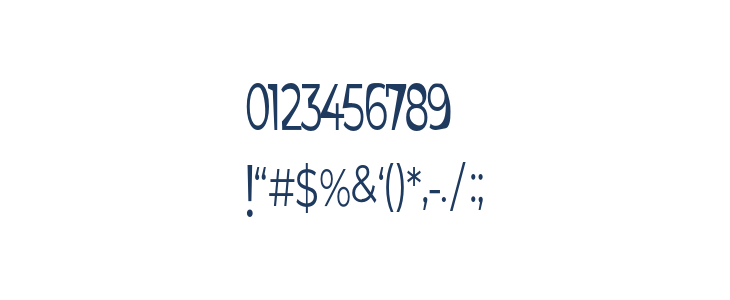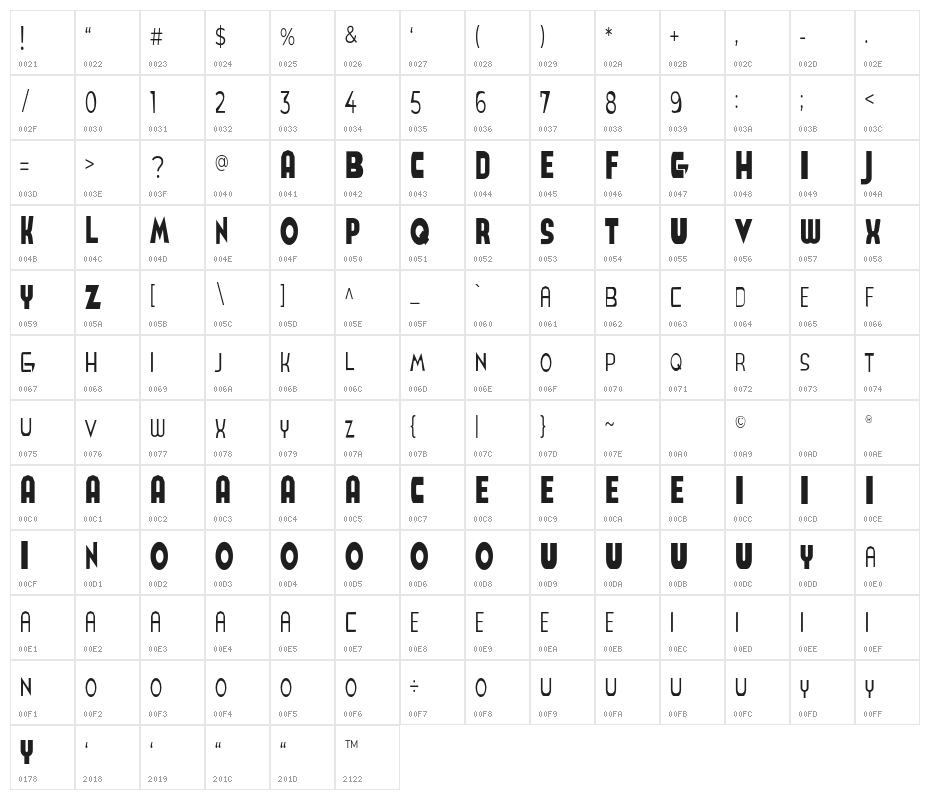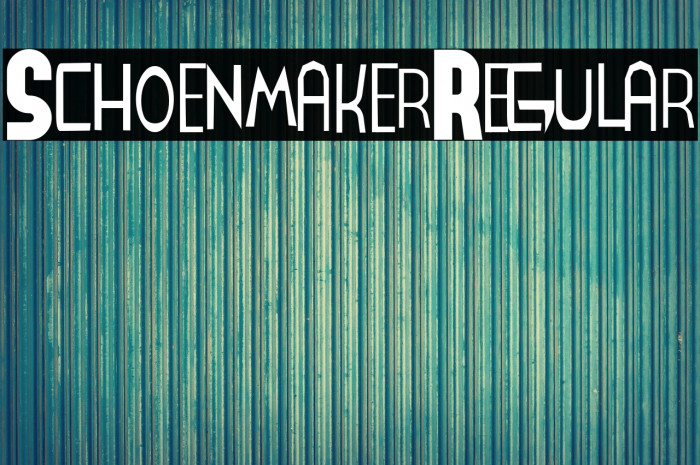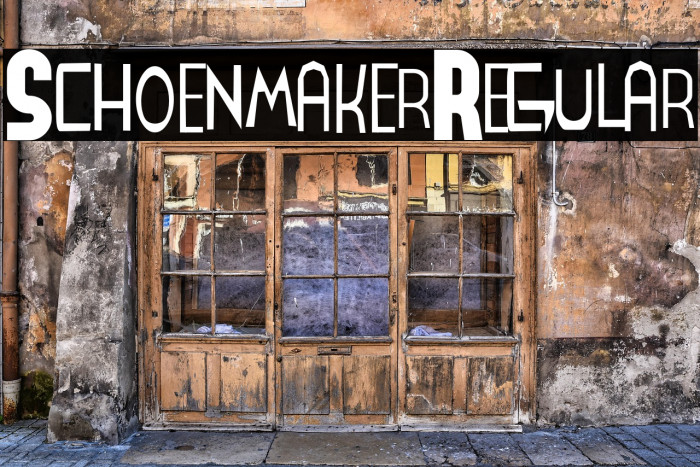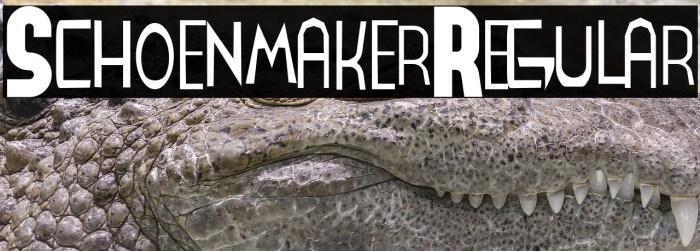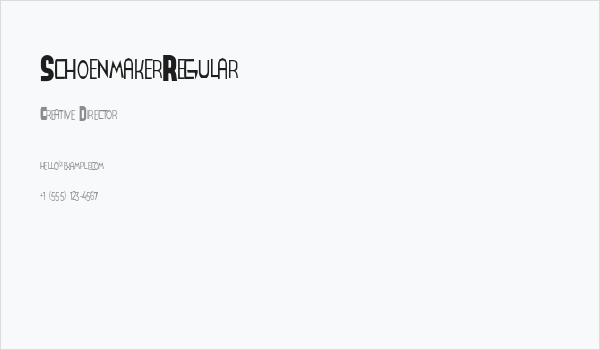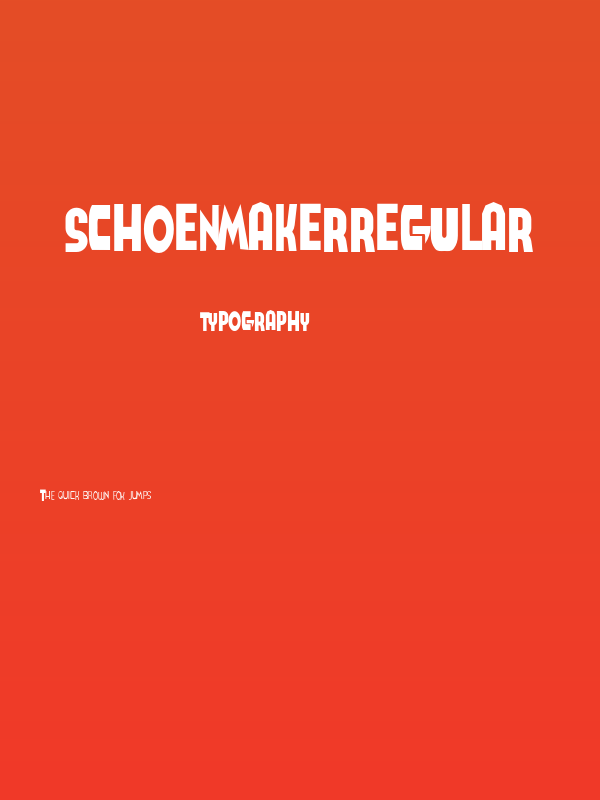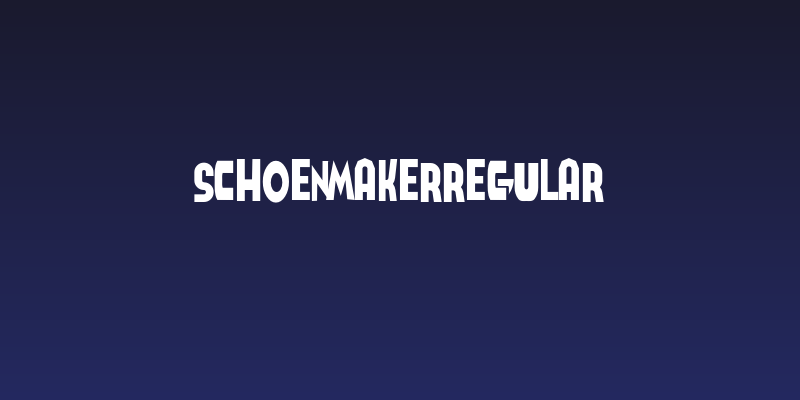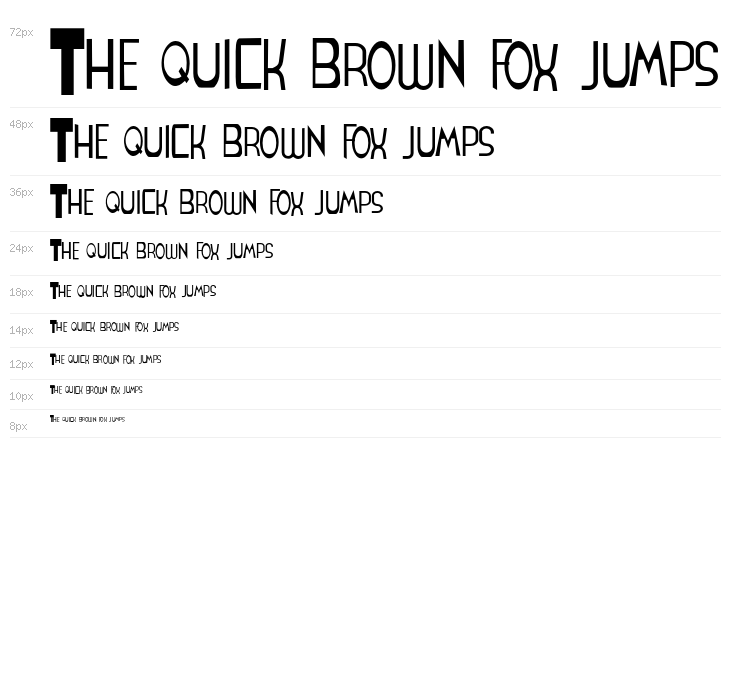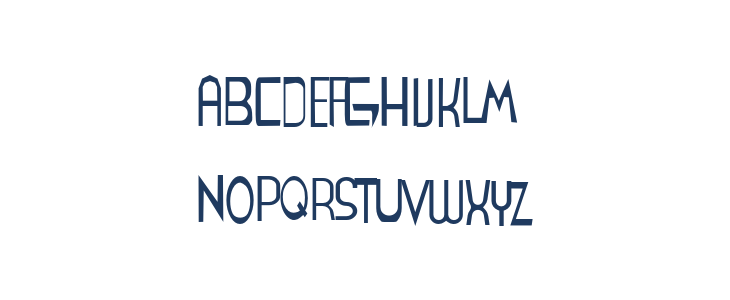
SchoenmakerRegular Font
SchoenmakerRegular Description
This font features a bold and geometric design, characterized by its sharp angles and unique letterforms. The uppercase letters are particularly striking, with a strong presence and a modern aesthetic. The lowercase letters maintain the geometric theme, offering a cohesive look across the typeface. Numbers and special characters are designed with the same attention to detail, ensuring versatility in various applications. The overall style is both contemporary and distinctive, making it suitable for projects that require a bold statement.
Proposed ProjectsIdeal for branding, posters, headlines, and any design work that requires a strong visual impact.